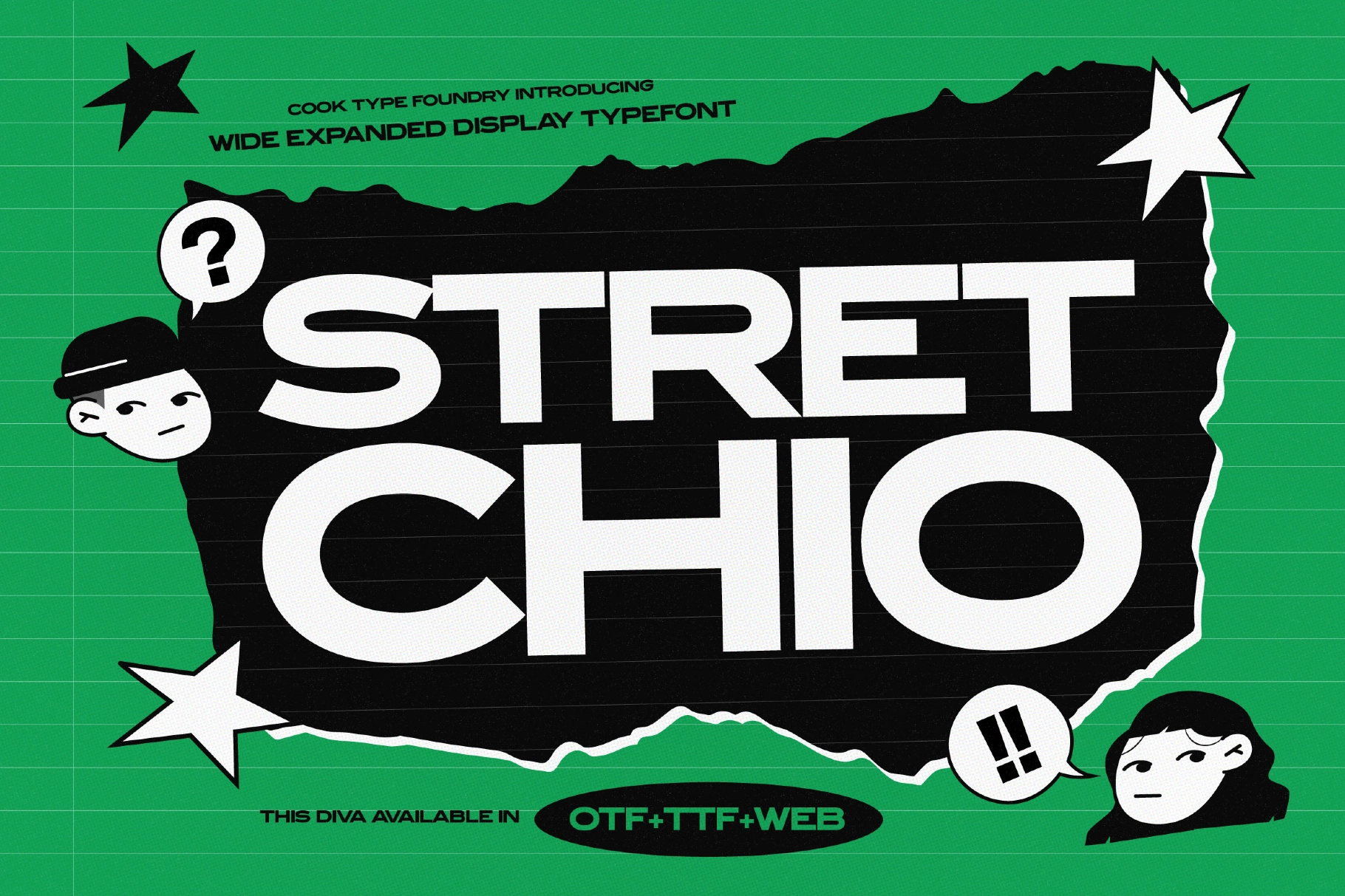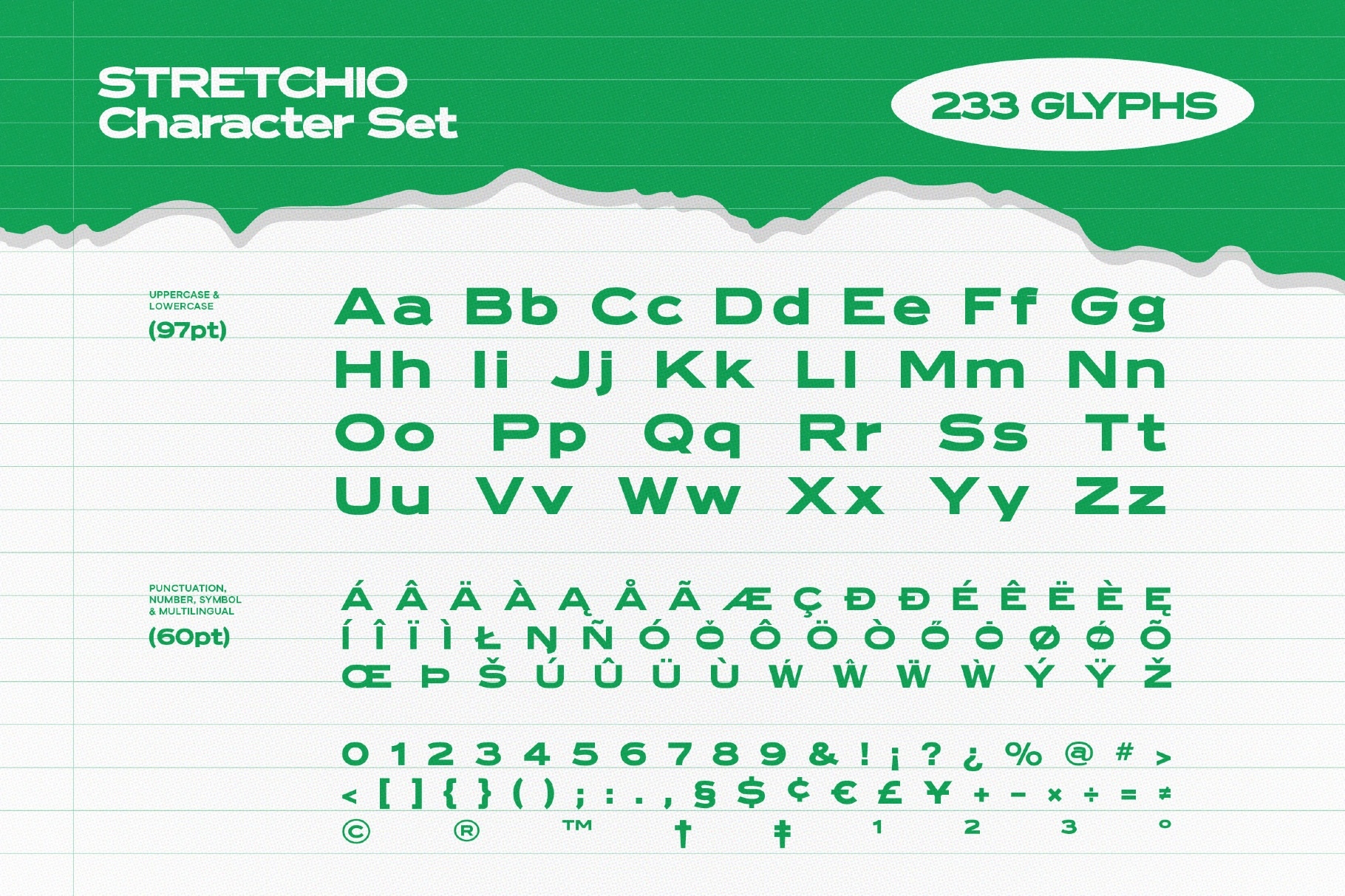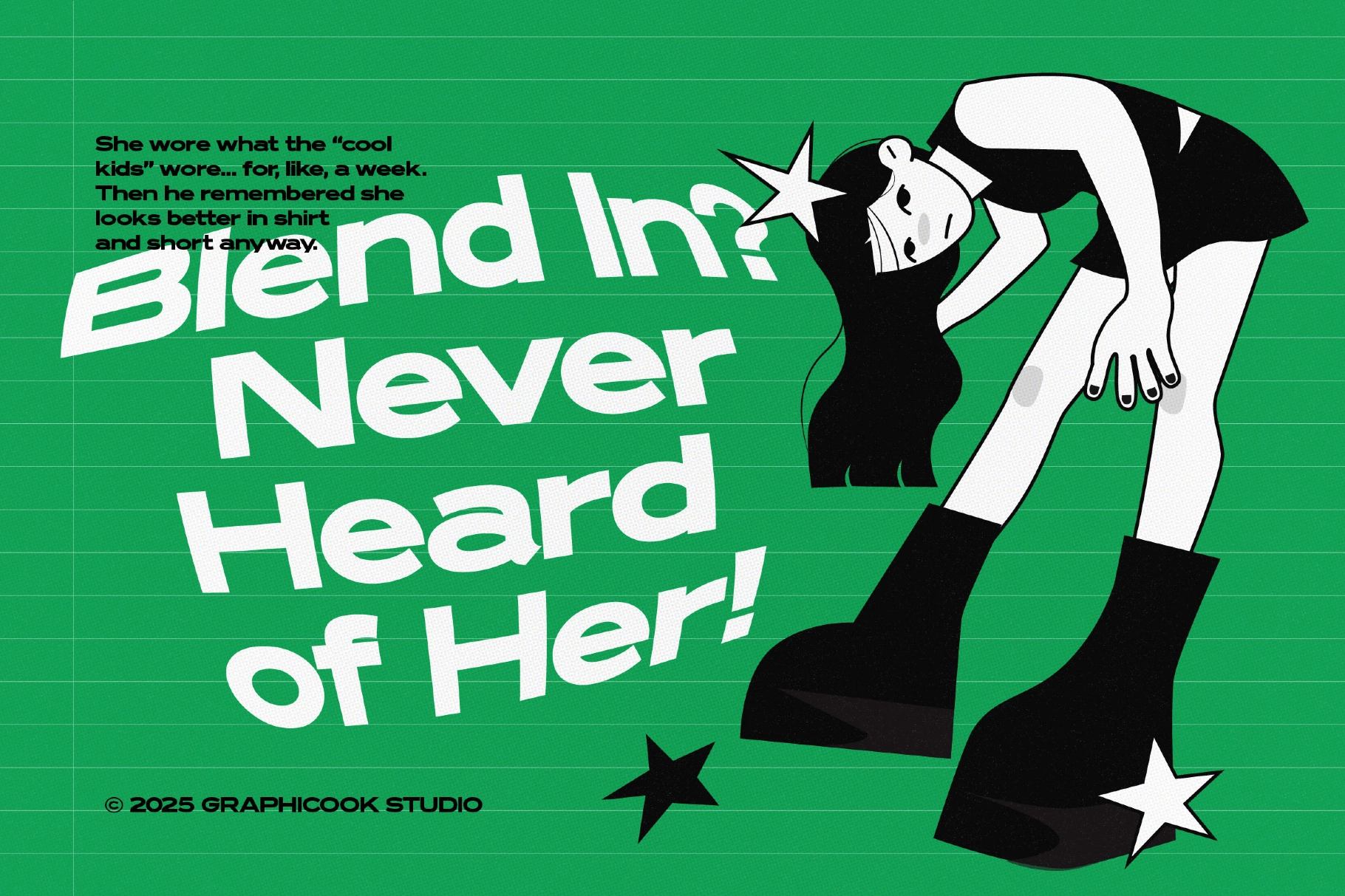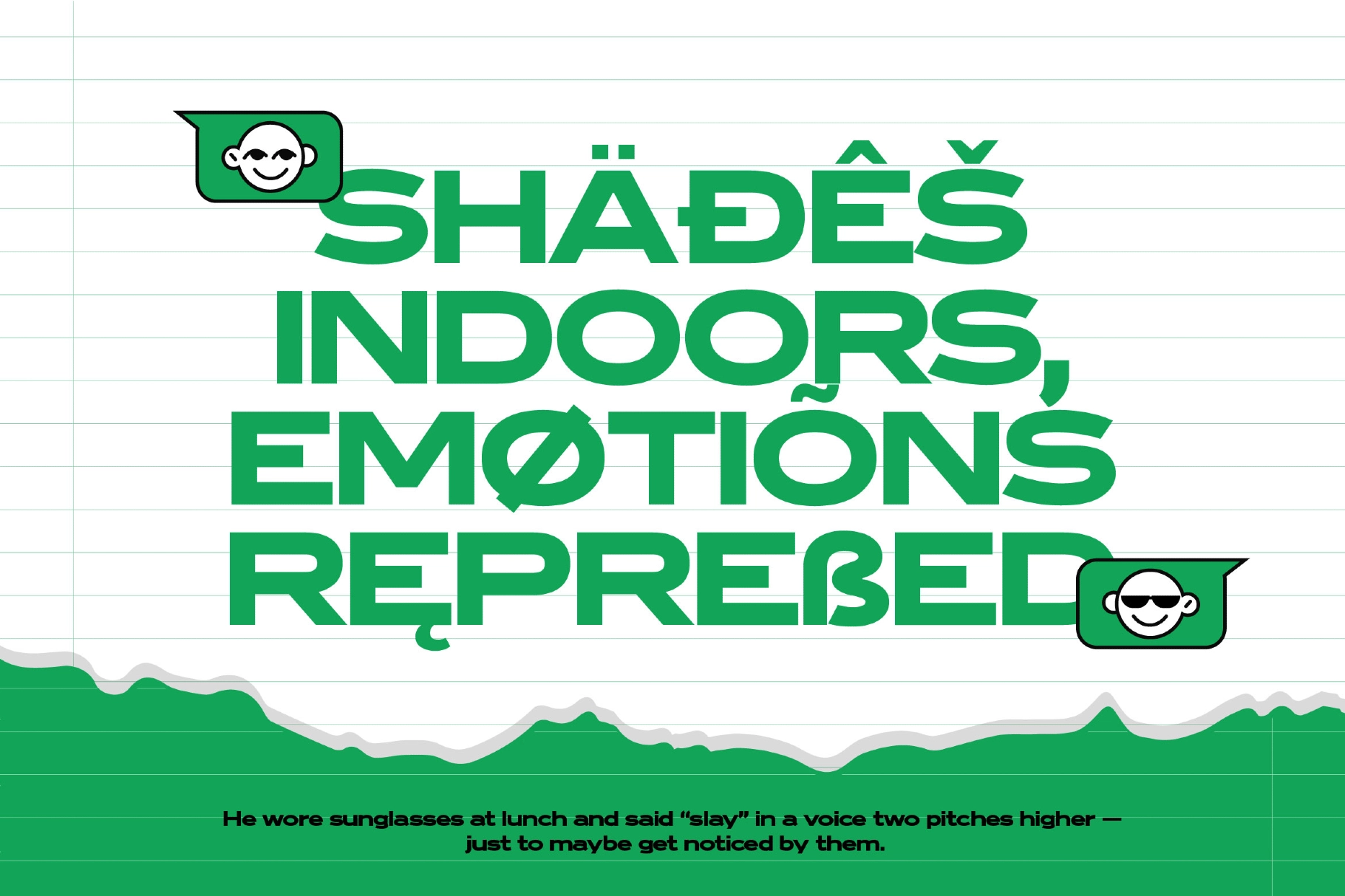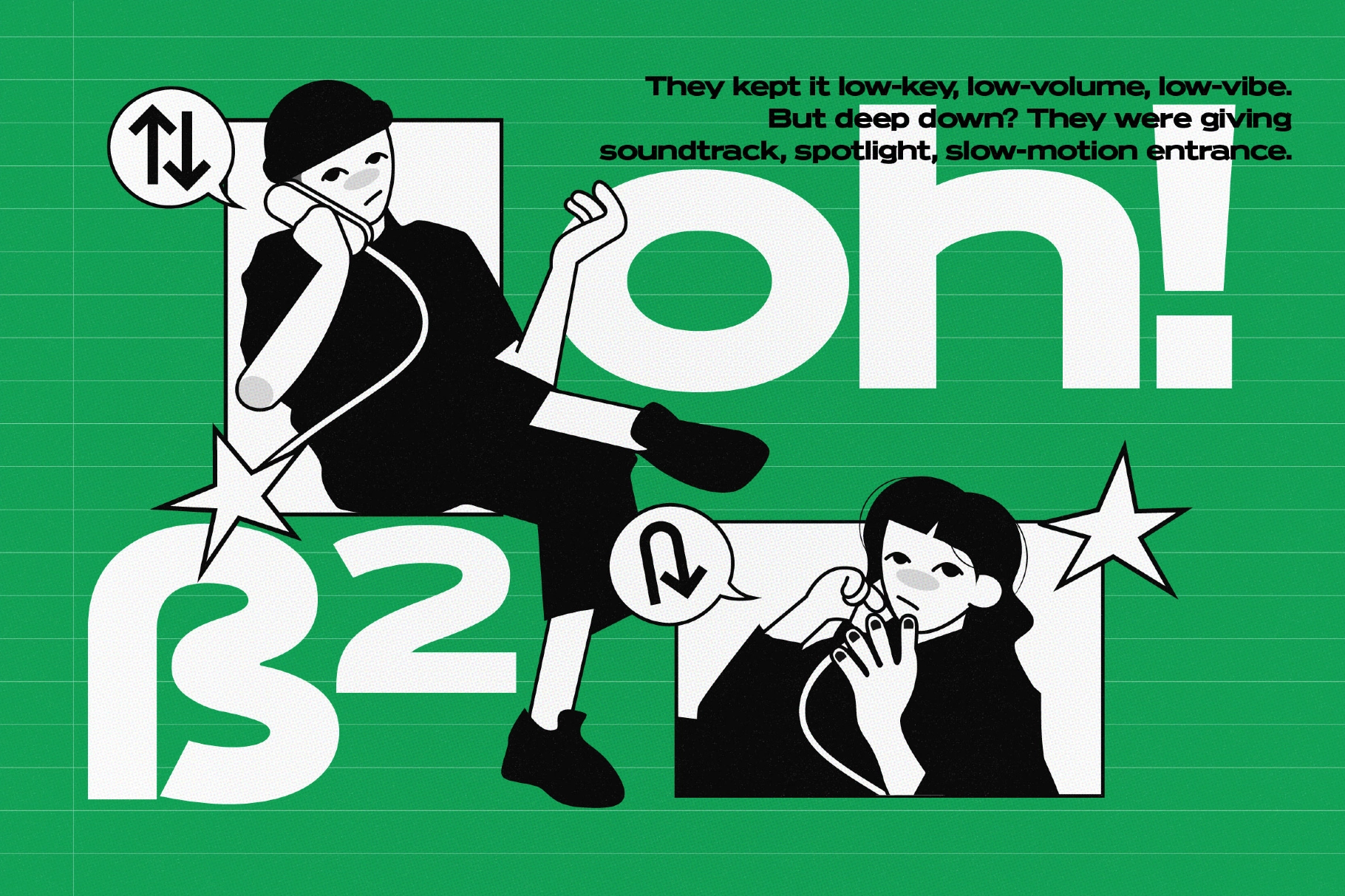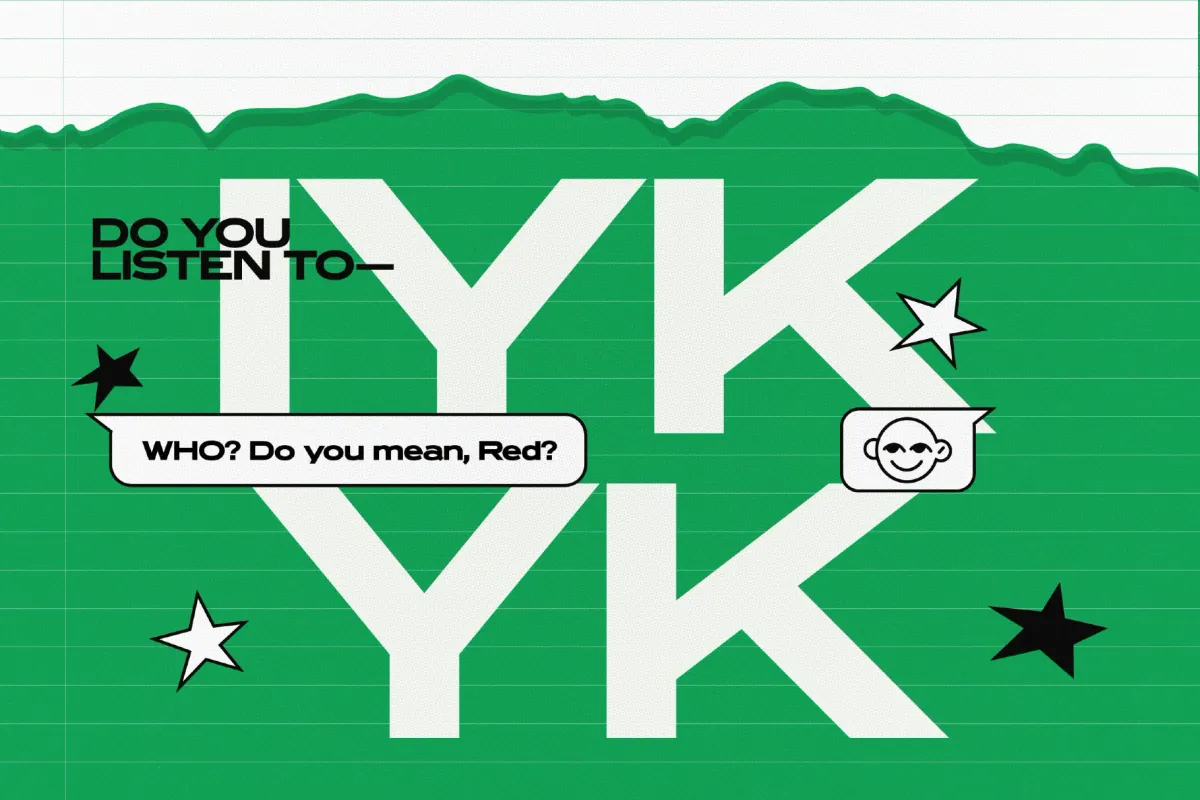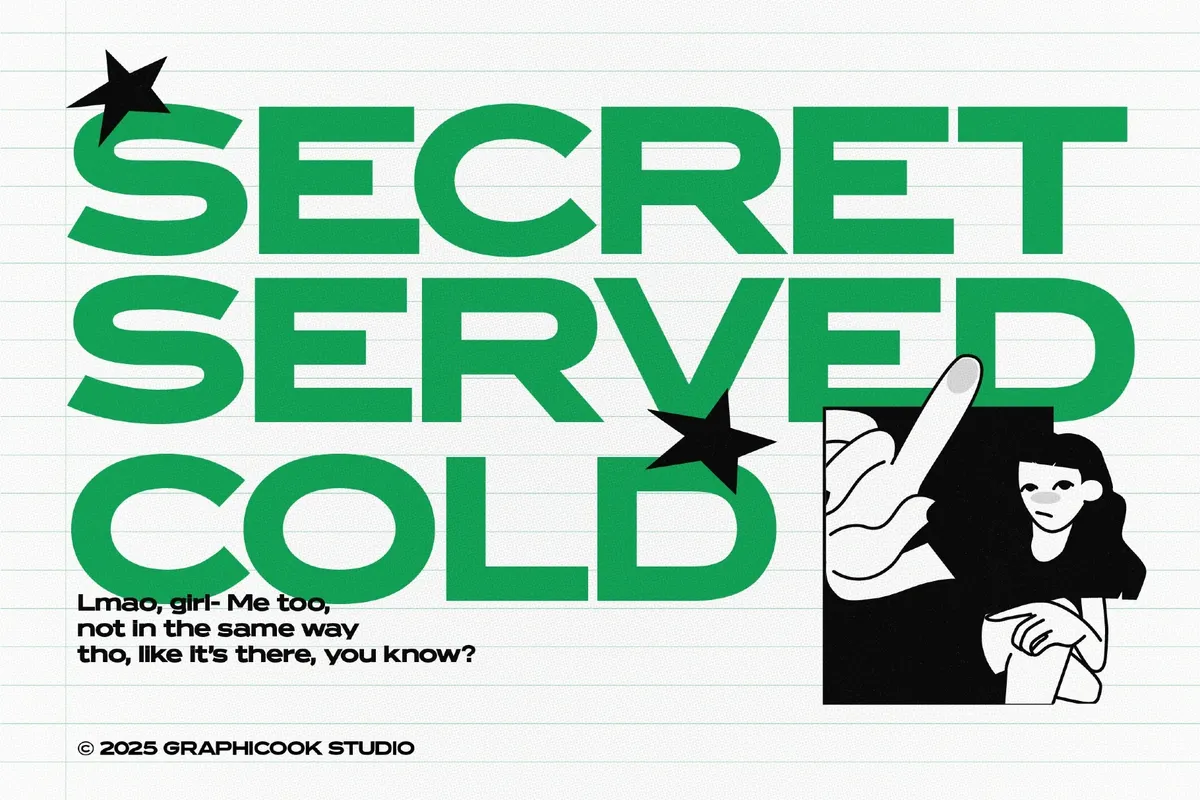
Stretchio Font
Stretchio is a wide, expanded font with a flat cartoon and playful style. It’s perfect for headlines and designs that embrace edgy, fun, and retro vibes.